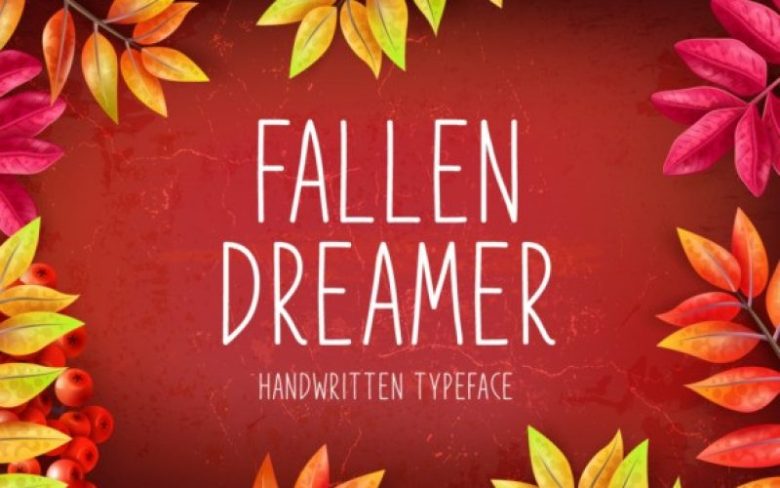
Fallen Dreamer Sans Serif Font
Fallen Dreamer is a sweet and simple handwritten font. Its neat style makes it incredibly versatile, fitting a wide range of designs.